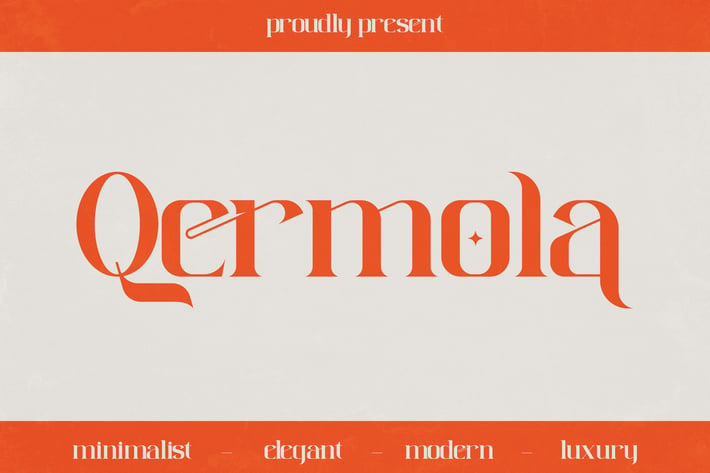
Qermola Modern Display Font
Qermola Modern Display is an elegant and stylish serif font that combines minimalism with a touch of luxury. Designed with refined letterforms and unique character details, it delivers a bold yet sophisticated impression for modern creative projects. This font is versatile and works beautifully in both digital and print media.
+ Elegant modern serif design
+ Unique ligatures and stylistic alternates
+ Uppercase, lowercase, numbers & punctuation
+ Multilingual support
+ Branding & logo design
+ Editorial & magazine layouts
+ Fashion & luxury projects
+ Product packaging
+ Posters & invitations
+ Social media graphics
Elevate your designs with Qermola — where modern elegance meets timeless luxury.